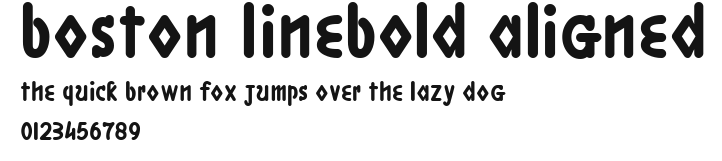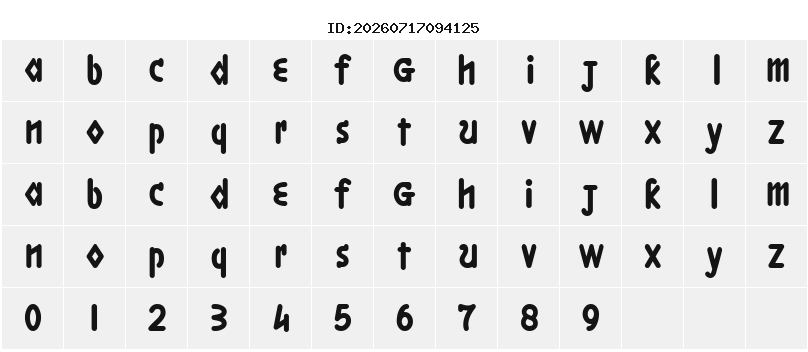
• Font Name: Boston LineBold Aligned
• Full Font Name: Boston LineBold Aligned
About Boston LineBold Aligned.ttf
Boston LineBold Aligned.ttf is a modern, elegant sans-serif font designed for ultimate readability and visual harmony. Perfect for branding, headlines, web design, and print materials.